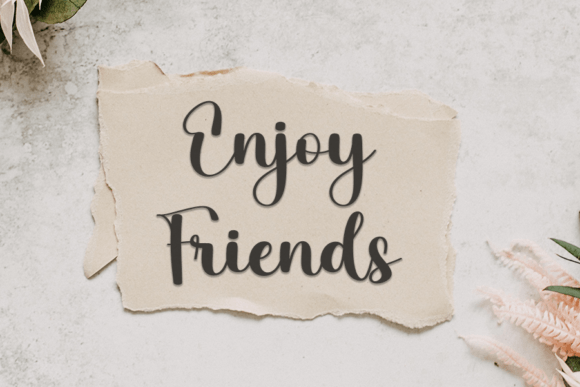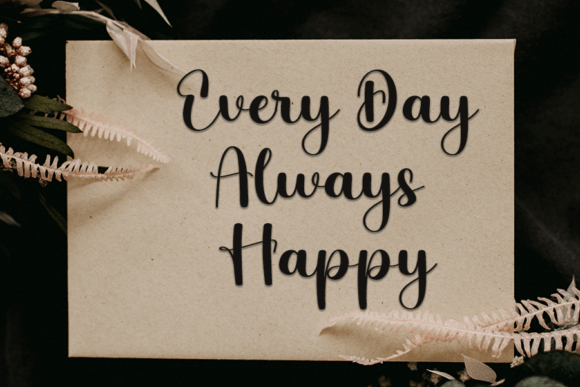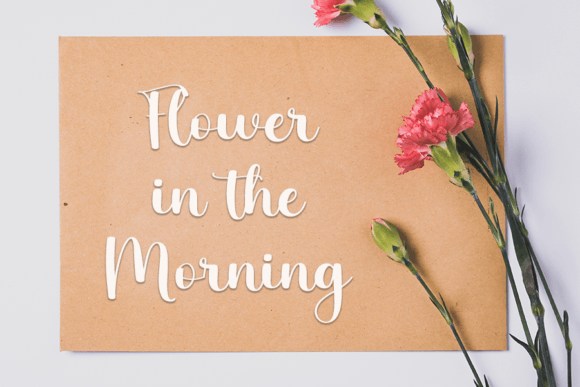
The Quest for the Perfect Font: Discovering Desert
I still remember the design project that led me to Desert Font. I was working on a whimsical invitation for a friend’s art exhibition, and I was determined to make it stand out. As I scrolled through my font library, I realized I needed something fresh, something that would capture the essence of the desert landscape that inspired the artwork. That’s when I stumbled upon Desert, a delicate handwritten font that instantly won my heart.
An Honest Review of Desert Font
- ✨ Delicate and elegant strokes that evoke a sense of sophistication
- 💫 Perfect for a variety of design projects, from invitations to food product labels
- 🎨 A versatile font that pairs well with both bold and minimalist design elements
While Desert is an amazing font, there are a few things to keep in mind:
- ⚠️ Limited availability of stylistic alternates, which may limit its use in certain design projects
- 🤔 May not be the best choice for body text, as it’s more suited for titles and headings
The Story Behind Desert Font
Imagine a designer who spent countless hours traveling through the desert, capturing its beauty and essence on paper. That’s roughly the story behind Desert Font. The designer, inspired by the rolling dunes and starry skies, sought to create a font that would evoke the same sense of wonder and calm. And so, Desert was born – a delicate, handwritten font that’s perfect for adding a touch of elegance to any design project.
Q: What type of projects is Desert Font best suited for?
Desert is a versatile font that can be used for a variety of projects, including invitations, food product labels, titles, and more.
Q: Is Desert Font available in different weights or styles?
Currently, Desert is available in a single weight, but its delicate strokes and elegant feel make it perfect for a variety of design applications.